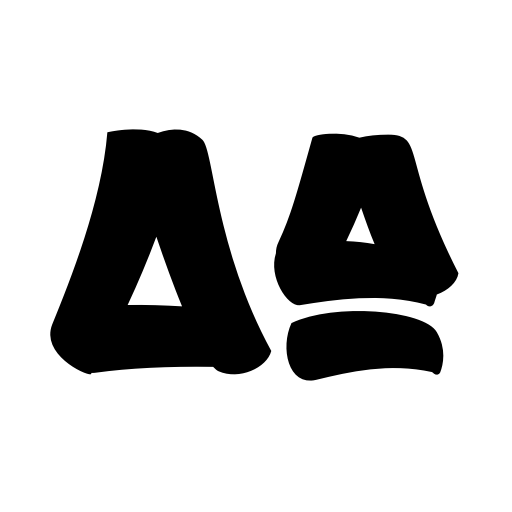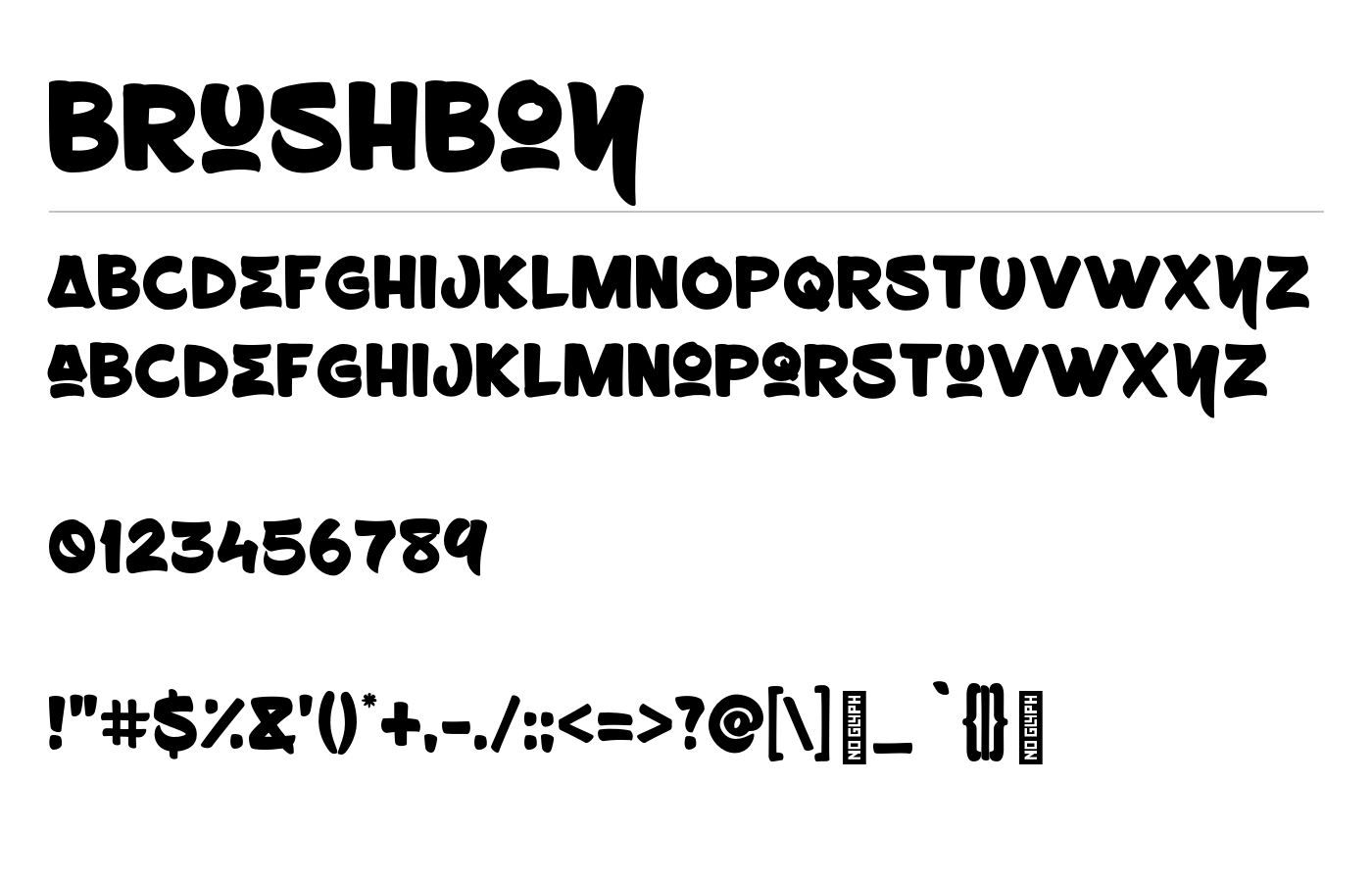
Brushboy is a bold, playful sans serif font with a hand-painted, brushstroke style that gives it a lively and informal feel. Its thick, rounded characters feature quirky, uneven shapes and a slightly condensed width, making it perfect for fun, eye-catching headlines and creative branding. Ideal for casual designs, posters, or packaging, Brushboy adds a charming, artistic touch that grabs attention while maintaining readability.
Brushboy Font
About Brushboy Font
| Designer | Petar Acanski |